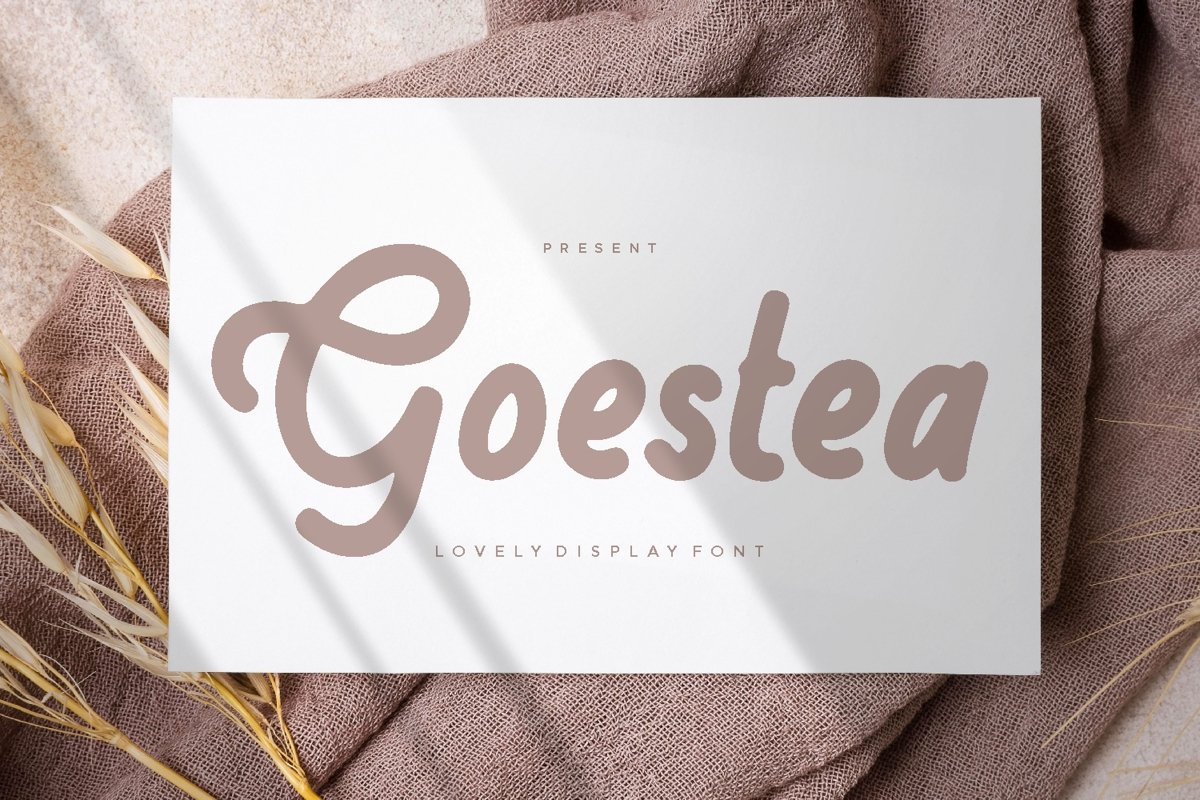
Goestea is a stylish handwritten display come with lovely themes. The shape of characters have cute flow. It matches applies in some designs such as the logotype, brand, packaging, quotes, cute poster, kids shirt, cover book, birthday invitation and more custom design. The features uppercase, lowercase, numeral, punctuation & symbol, multilingual support.